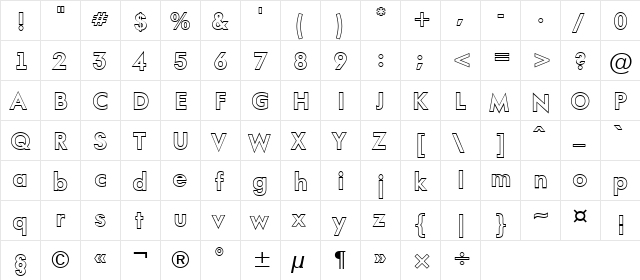
a_FuturaOrtoOtl Bold
Design Context for a_FuturaOrtoOtl Typeface
a_FuturaOrtoOtl channels digital-age aesthetics through its sharp, structured letterforms — ideal for brands that want to signal innovation. Its bold stroke weight gives it real presence on the page.